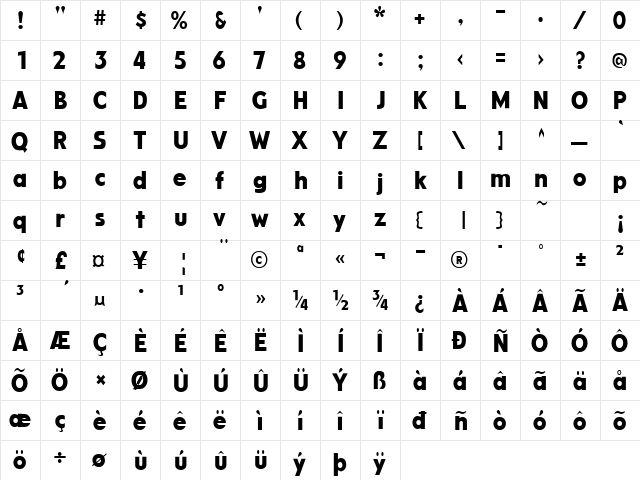
Kolkman Bold
Design Context for Kolkman Typeface
Kolkman is a composed and adaptable typeface that performs quietly and consistently across a wide range of design contexts. The heavy weight commands attention and anchors typographic hierarchies.
Pro Tip: Use Kolkman in both headline and body roles to test its range before committing to a single application.